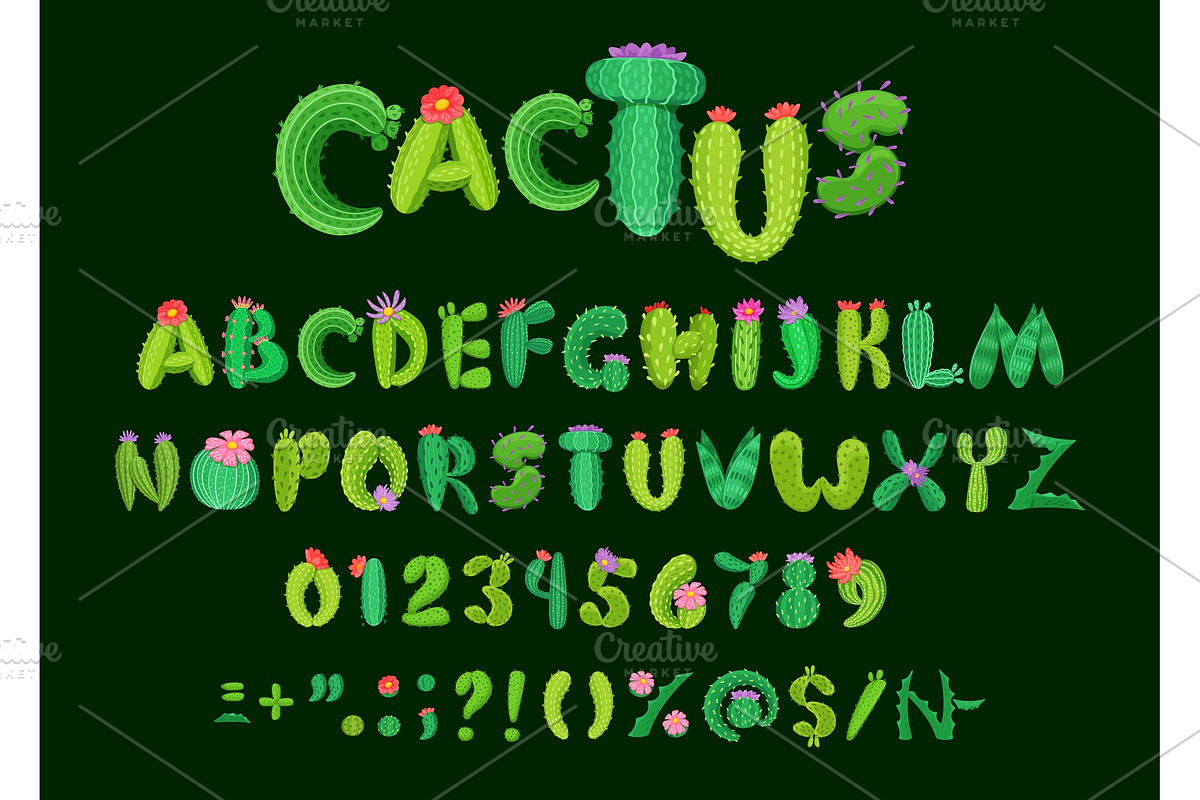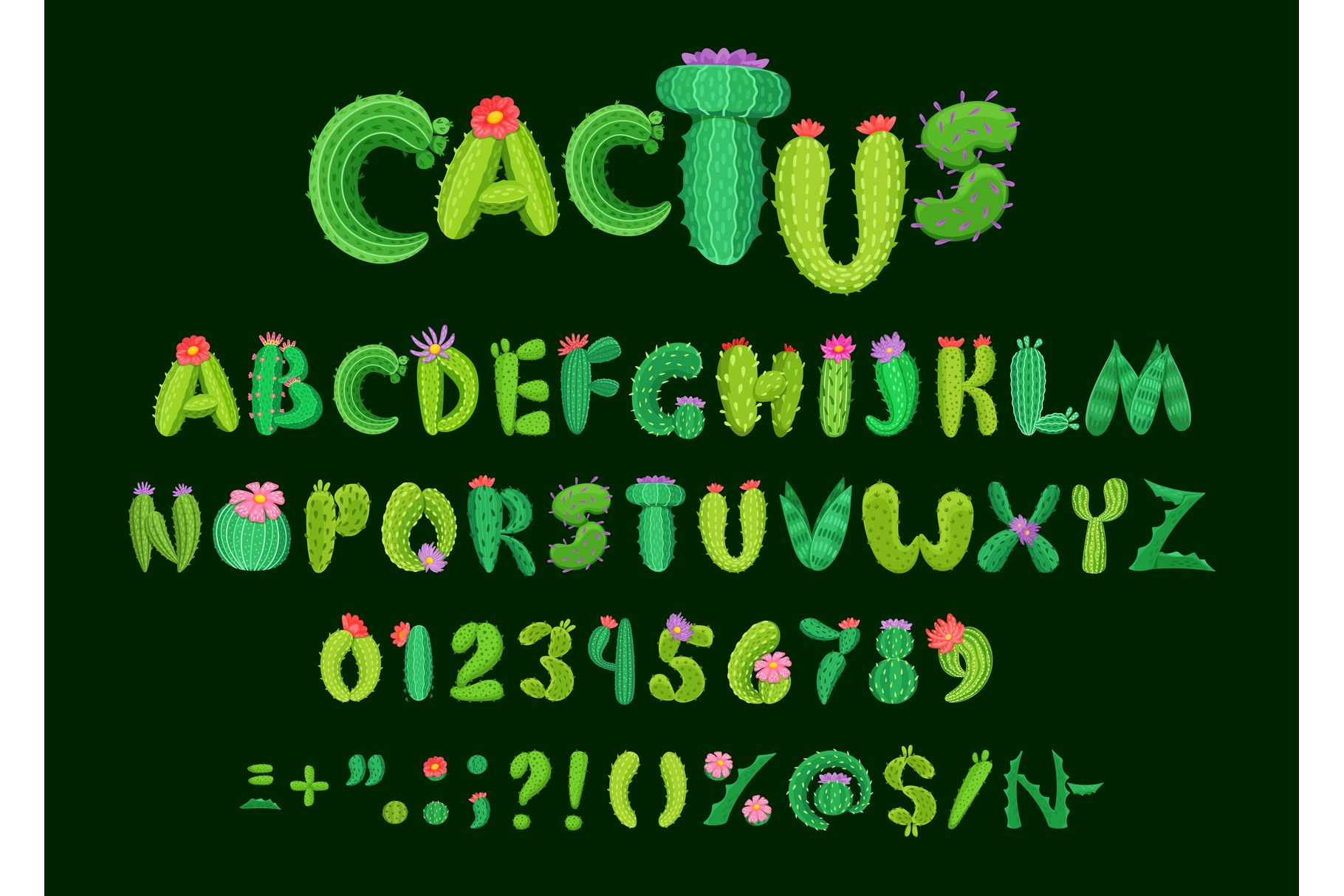
Succulent font, cartoon cacti type
Succulent font, cartoon cacti type letters, cactus plants typeface. Cartoon vector tropical kids abc, alphabet numbers and punctuation symbols is shaped like a cactus plant with flowers and thorns. Keywords - succulent, font, cartoon, cacti, type, cactus, plant, typeface, vector, alphabet, letter, character, thorn, flower, green, tropical, desert, cute, abc, kid, prickly, foliage, summer, uppercase, symbol, creative, typography, number, digit, punctuation, wild west, western, exotic, early, learning, education, funny, text, garden, leaf, flora, element, decorative, natural, spiky, nature, greenery, texture, blossom